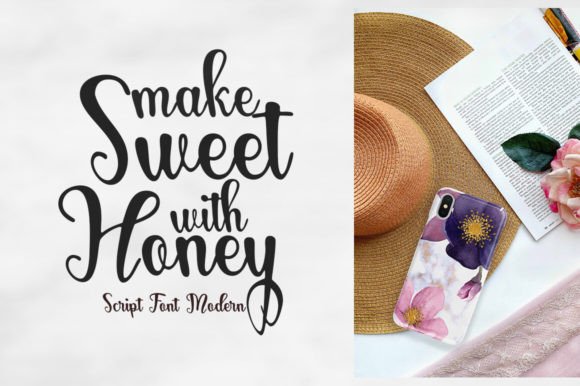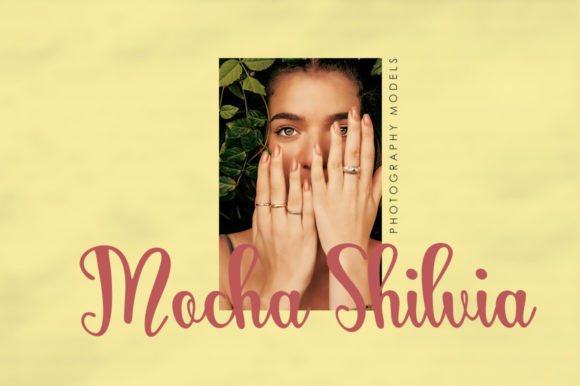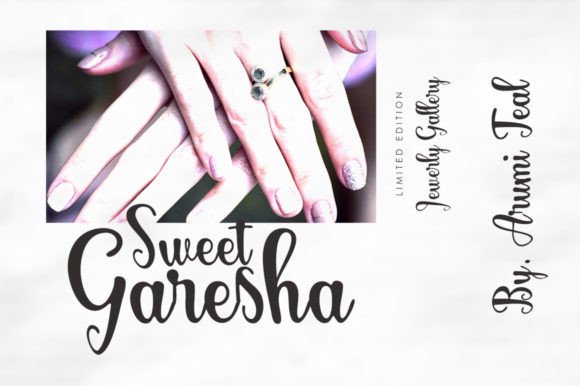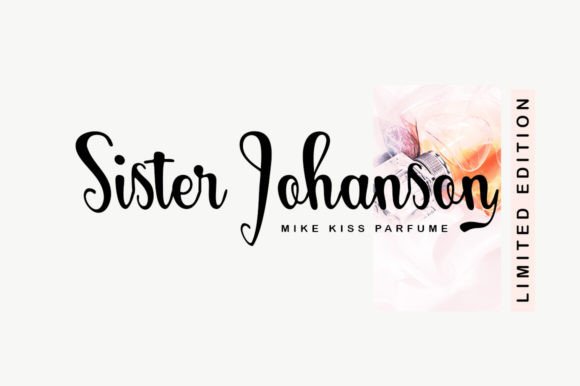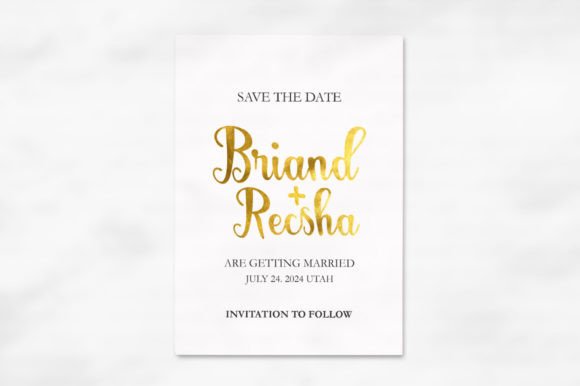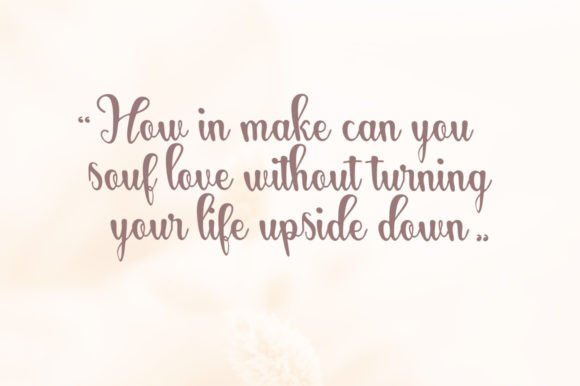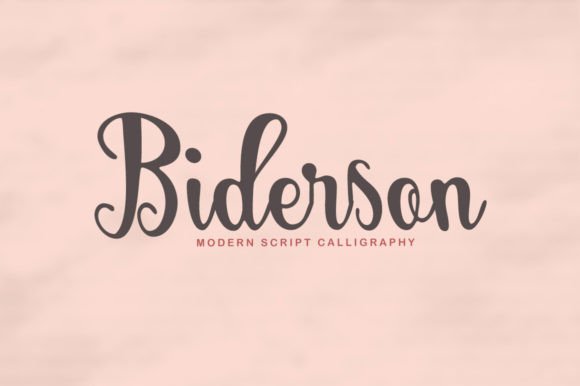
Introducing Biderson Script Font: Elevate Your Designs with Elegance and Modernity
Are you searching for a font that seamlessly blends classic style with modern calligraphy? Look no further than the Biderson Script Font! This stunning new font is designed to add a touch of elegance and sophistication to your designs, making it perfect for crafters, designers, and anyone looking to elevate their visual creations.
The Perfect Balance of Classic and Modern
Biderson Script Font is a masterful blend of traditional and contemporary calligraphy styles. Its classic roots provide a sense of timelessness and sophistication, while its modern twists inject a fresh and dynamic feel. This unique balance makes it an ideal choice for designers who want to create visually striking designs that stand out from the crowd.
Key Features of Biderson Script Font
- Elegant and Refined: Biderson Script Font boasts a sleek and polished appearance, perfect for creating high-end designs that exude luxury and sophistication.
- Modern Calligraphy Style: The font’s modern calligraphy style adds a touch of whimsy and creativity to your designs, making them perfect for crafters and designers who want to push the boundaries of traditional design.
- Versatile: Biderson Script Font is incredibly versatile, making it suitable for a wide range of design applications, from wedding invitations and branding materials to packaging and digital graphics.
- Easy to Read: Despite its elegant and refined appearance, Biderson Script Font remains highly legible, ensuring that your message is conveyed clearly and effectively.
Use Cases for Biderson Script Font
Biderson Script Font is an incredibly versatile font that can be used in a variety of design applications, including:
- Wedding Invitations and Stationery: Add a touch of elegance and sophistication to your wedding invitations, save-the-dates, and other stationery with Biderson Script Font.
- Branding and Packaging: Use Biderson Script Font to create eye-catching branding materials, such as business cards, letterheads, and packaging.
- Digital Graphics: Biderson Script Font is perfect for creating stunning digital graphics, including social media graphics, blog headers, and email newsletters.
- Crafting and DIY Projects: Add a personal touch to your crafting and DIY projects, such as handmade cards, gift tags, and scrapbooking pages.
Why Choose Biderson Script Font?